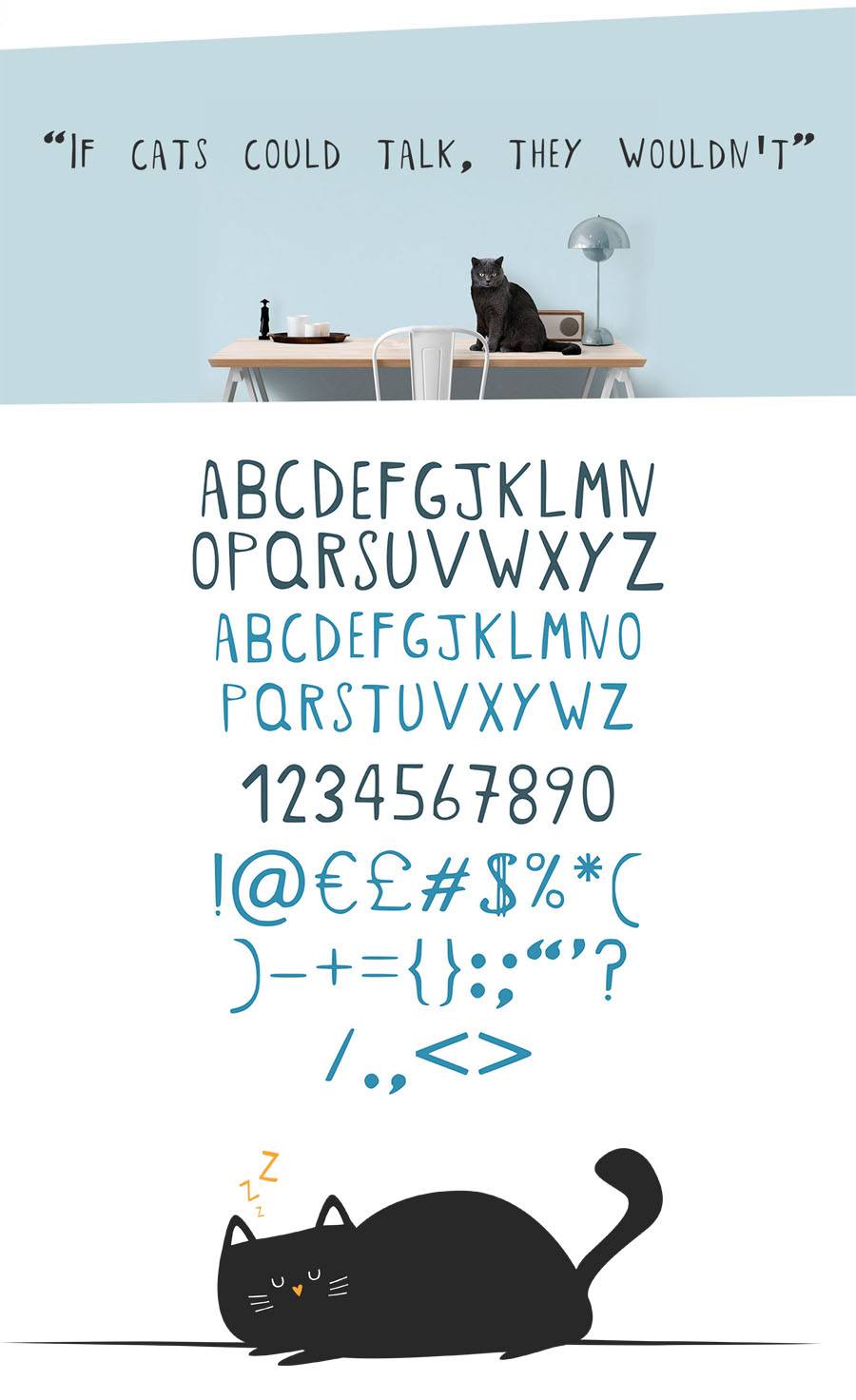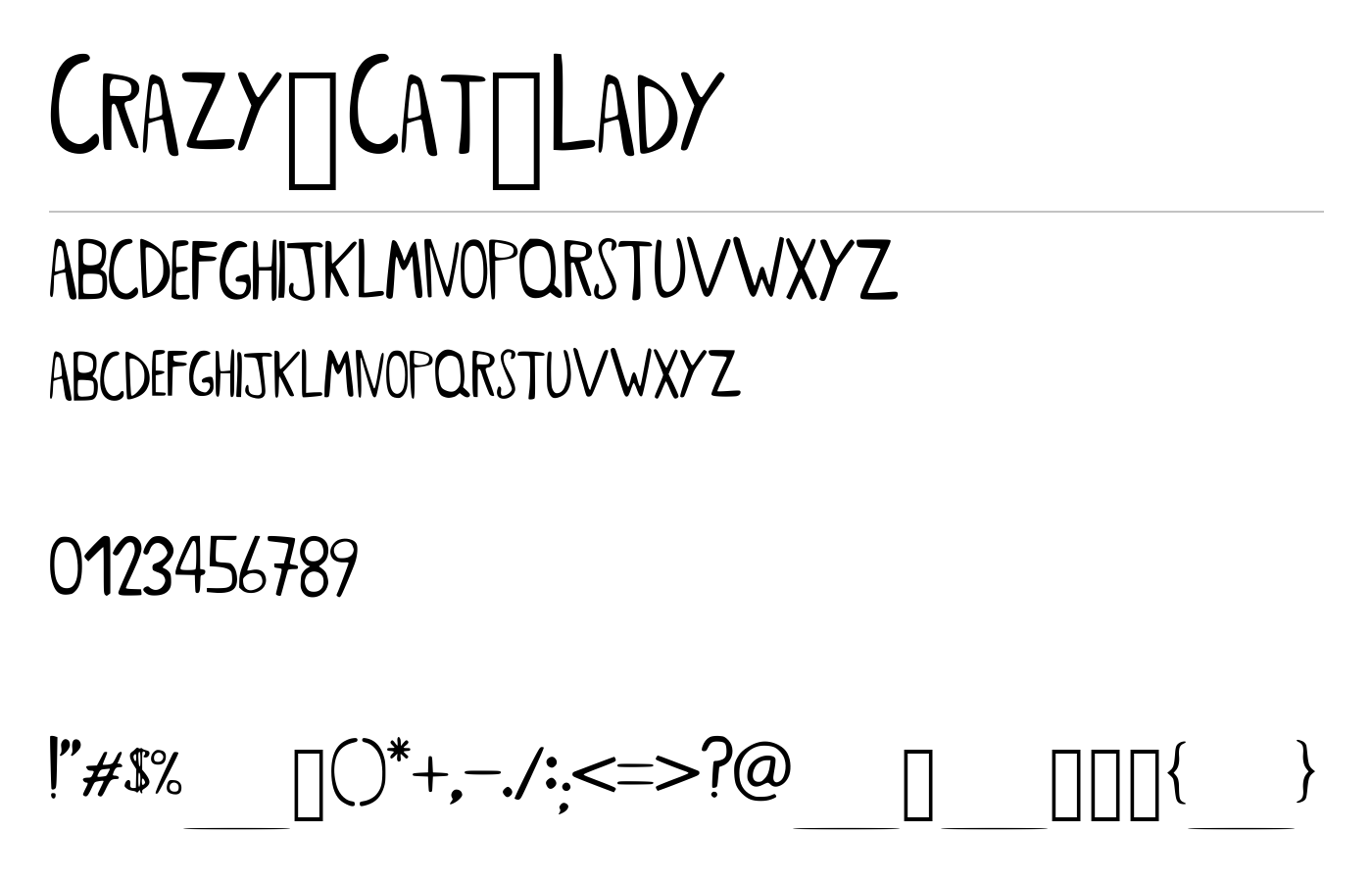
Crazy Cat Lady Font is a playful and quirky sans serif typeface with tall, narrow letterforms and uneven stroke widths that give it a hand-drawn, whimsical feel. Its casual style and narrow proportions make it ideal for fun, informal designs such as greeting cards, children's projects, or quirky branding where a touch of personality and friendliness is desired. This font works best in headlines or short text where its unique charm can really stand out.
Crazy Cat Lady Font
About Crazy Cat Lady Font